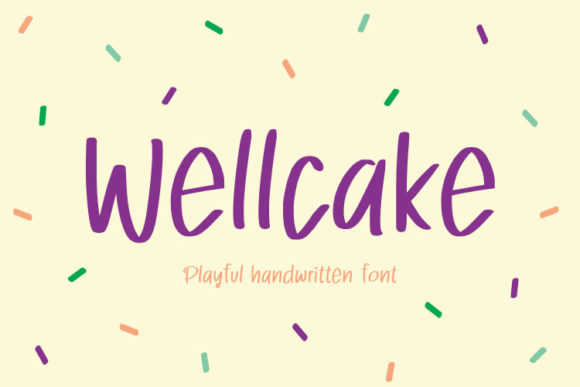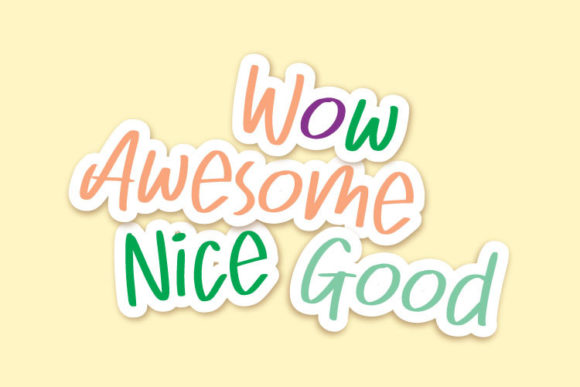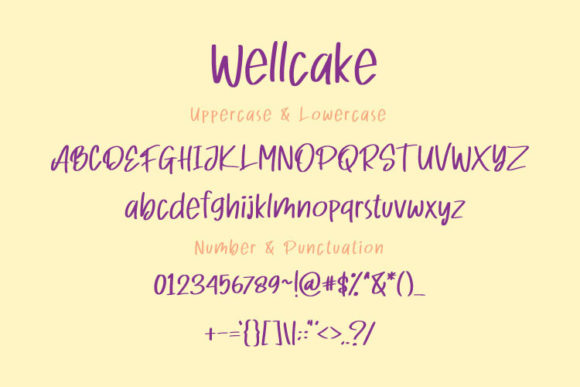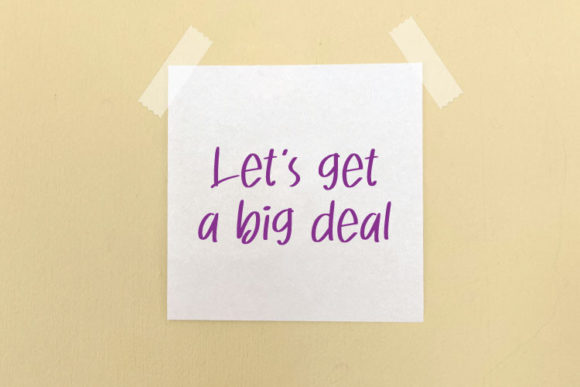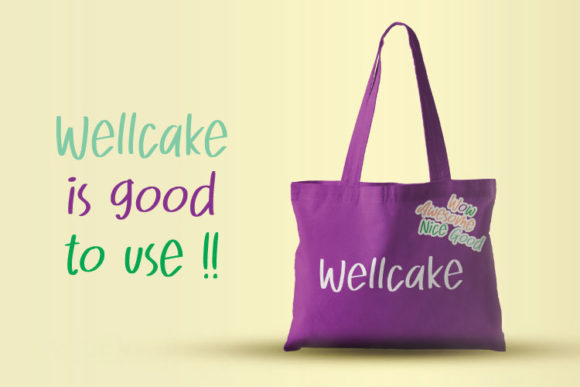
Wellcake Font
About Wellcake Font
Wellcake is a relaxed script font featuring charming, playful characters that seem to dance along the baseline. Add this font to your most creative ideas, and notice how it makes them stand out!